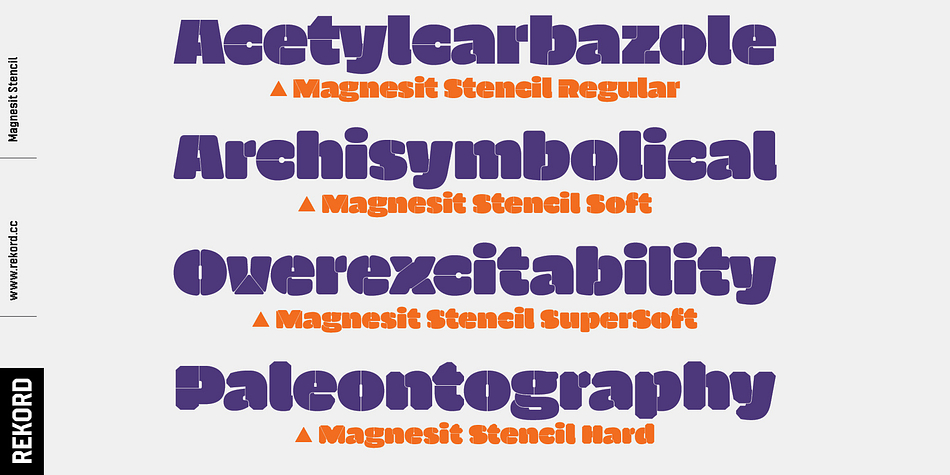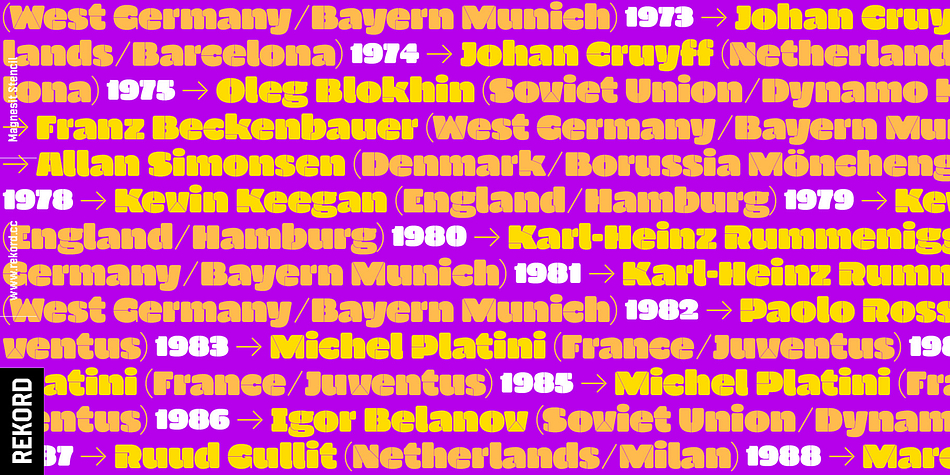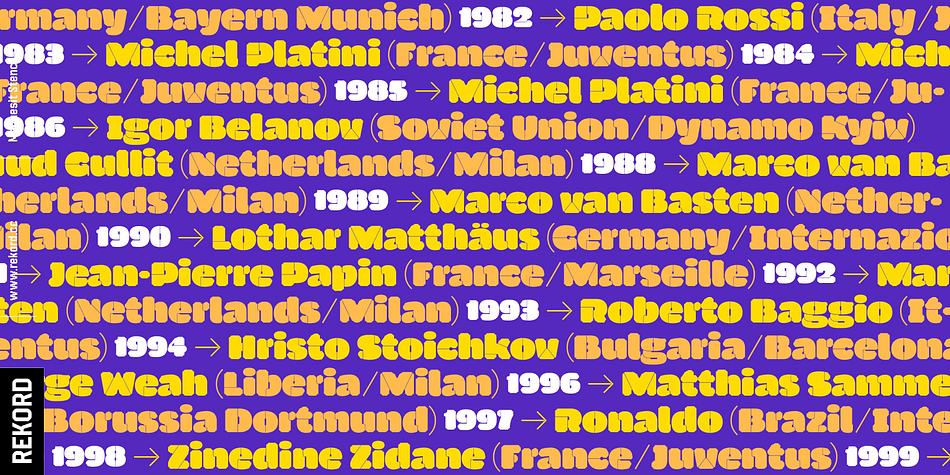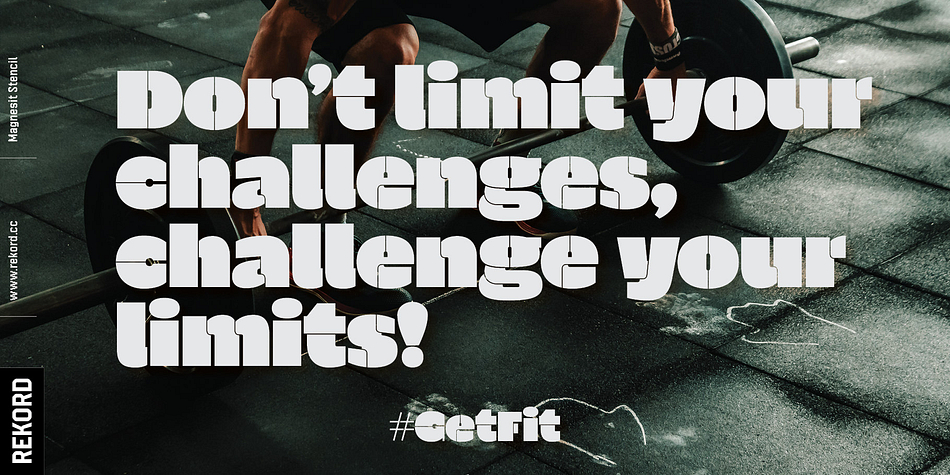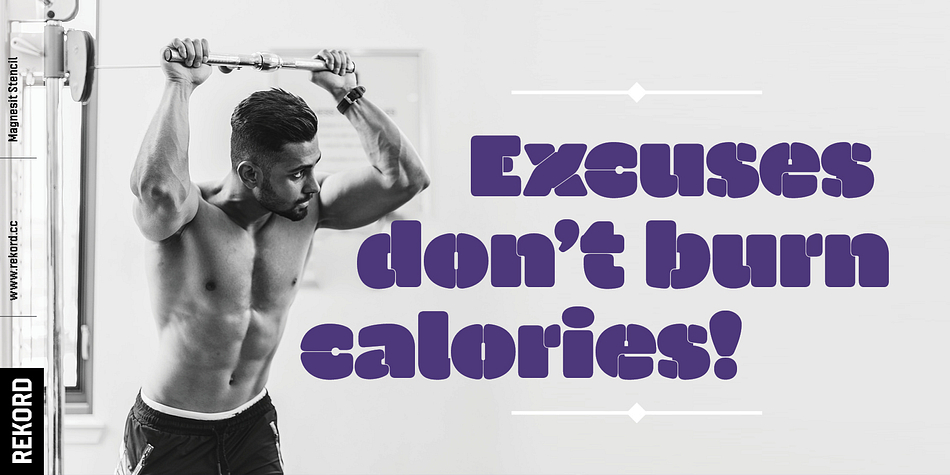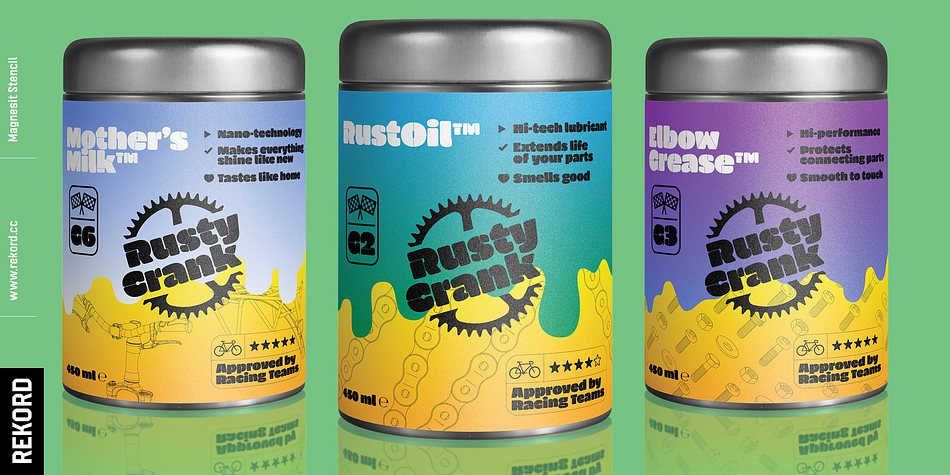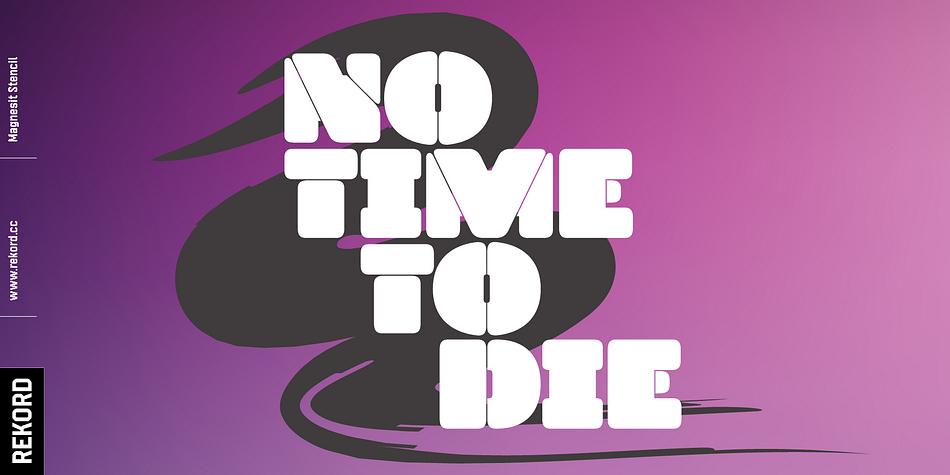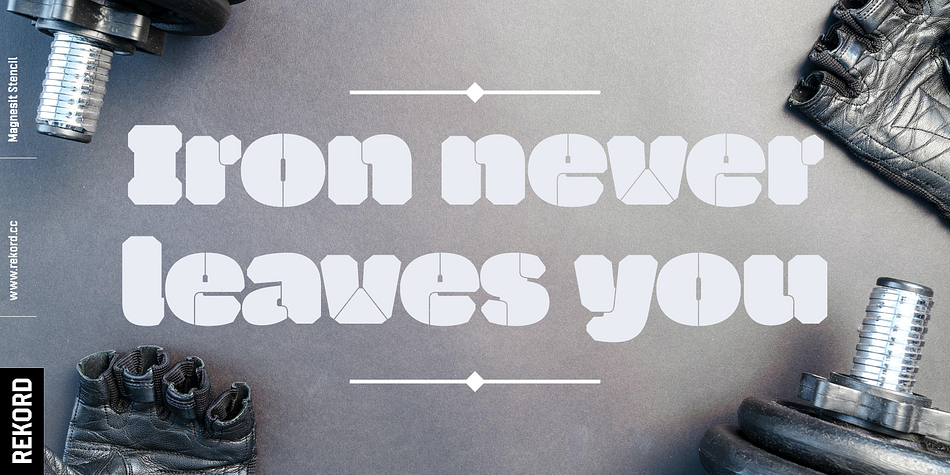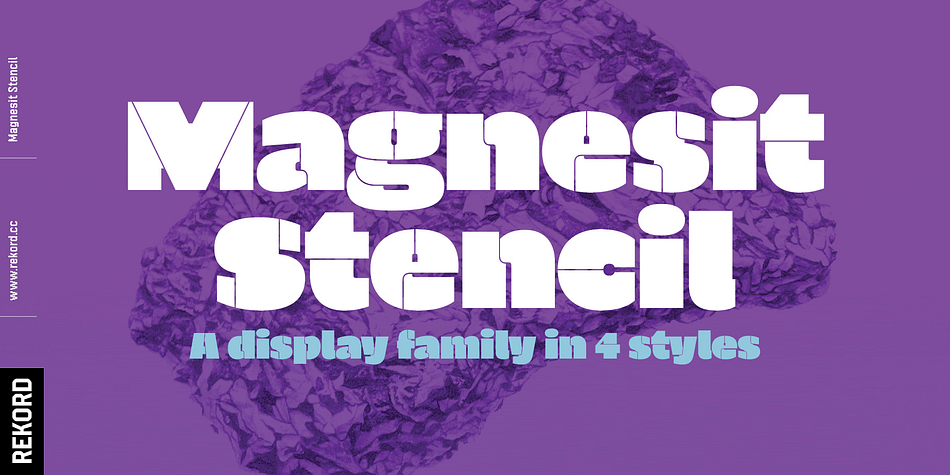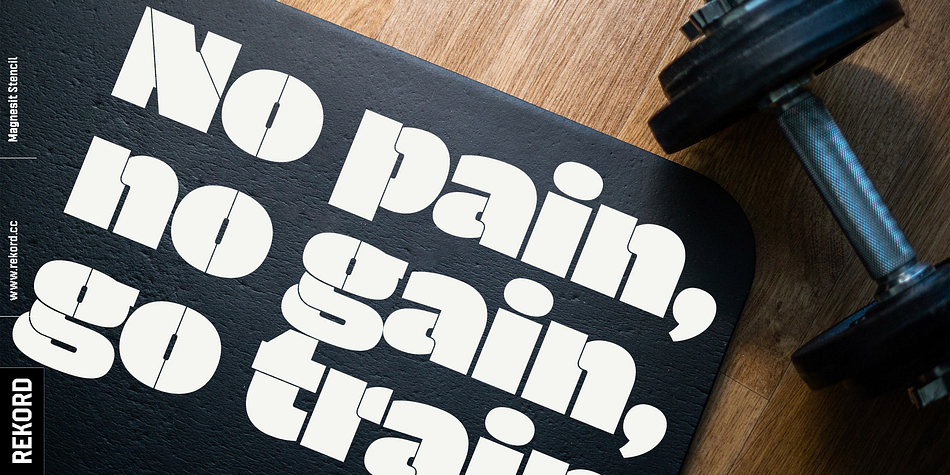
Designed by Oleksandr Parkhomovskyy, Magnesit Stencil is a display sans and stencil font family. This typeface has four styles and was published by Rekord.
Sporty and brawly, Magnesit Stencil creates impact everywhere it lands. Impressive headlines are its specialty, but it feels right at home used in packaging, branding and poster design. With a very tall x-height, wide language support and minimalistic yet playful appearance, it can take on any serious typographic job.
Four distinct styles expand the possibilites even further: the straight to the point Regular, the friendly Soft and the determined Hard styles share metrics across related Magnesit and Magnesit Dark families, so you can mix and match to achieve exactly the effect you need. The SuperSoft style unique to the Magnesit Stencil family carries the concept to the extreme, mixing soft organic curves with rigid modularity inherent to stencil signage.
Magnesit Stencil works great with illustrations, the generous shapes can be easily filled with strong imagery to great effect.
Based on the best-selling Grim, Magnesit Stencil is a vast improvement of the concept with long awaited addition of lowercase, reworked proportions, spacing and kerning, expanded language support and useful icons to satisfy even the most demanding typographers’ needs.